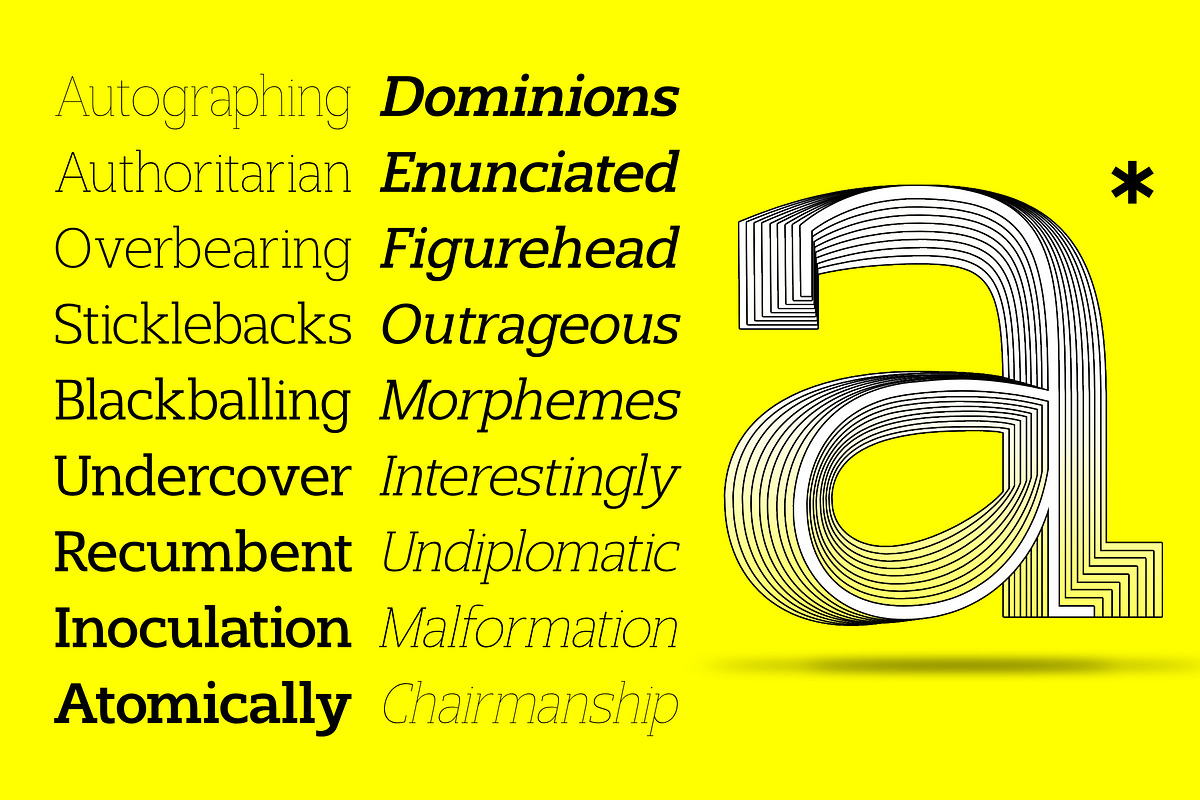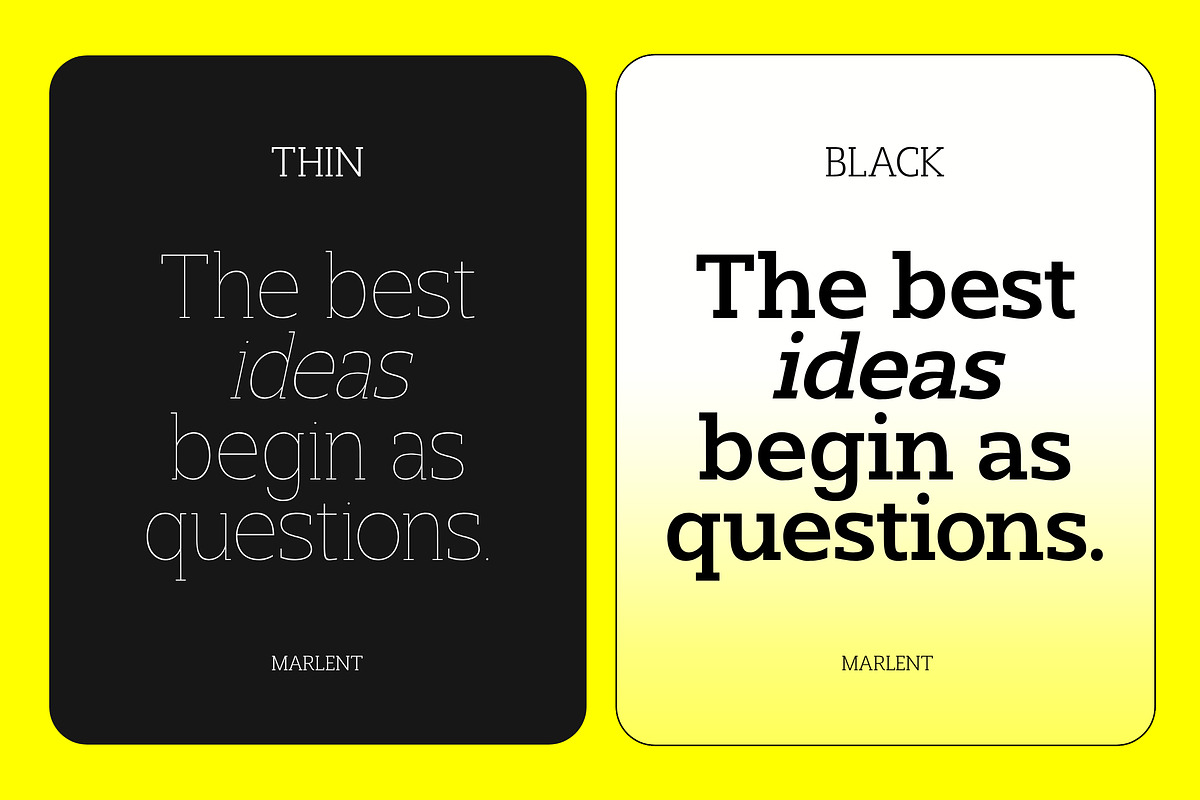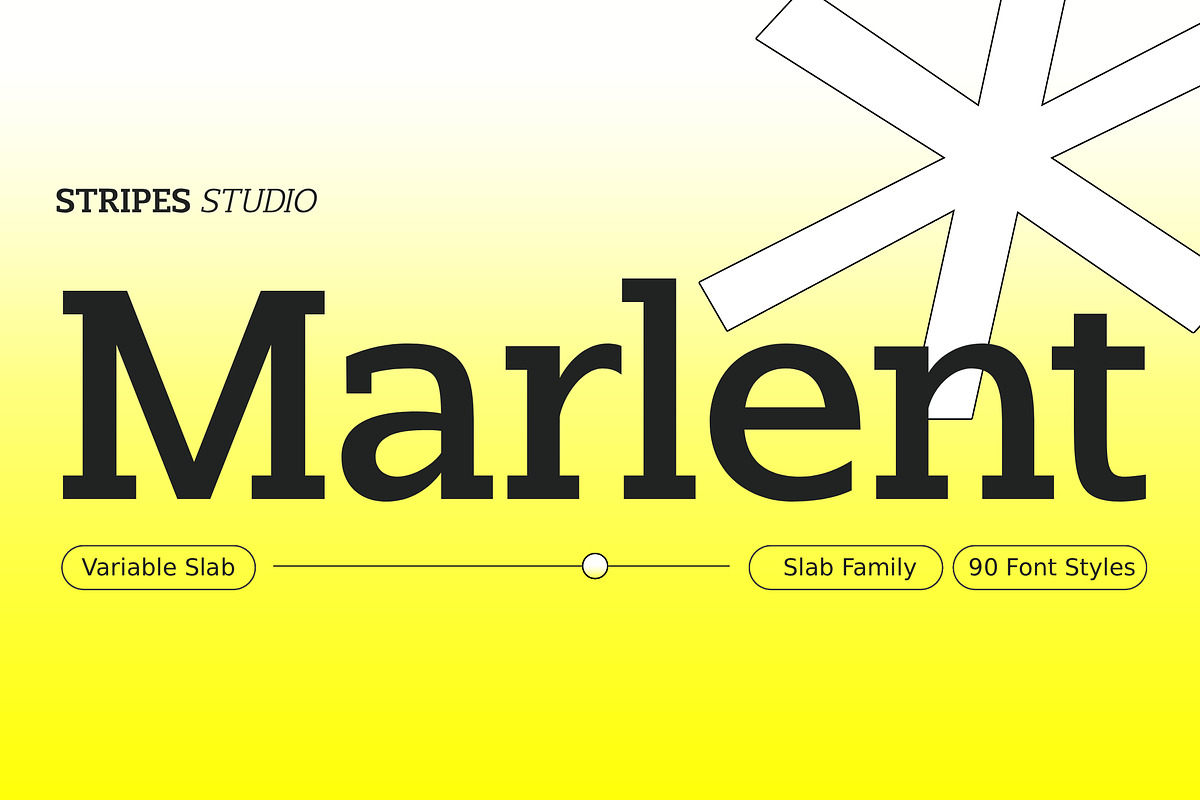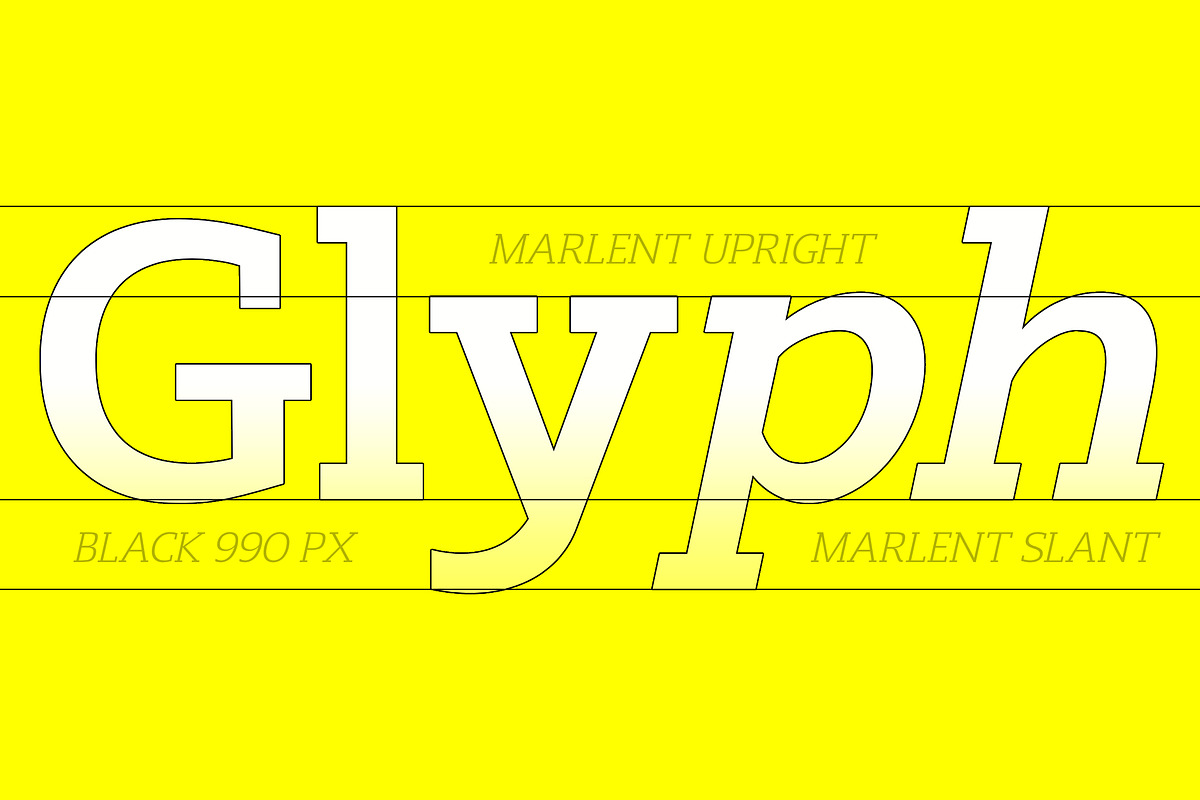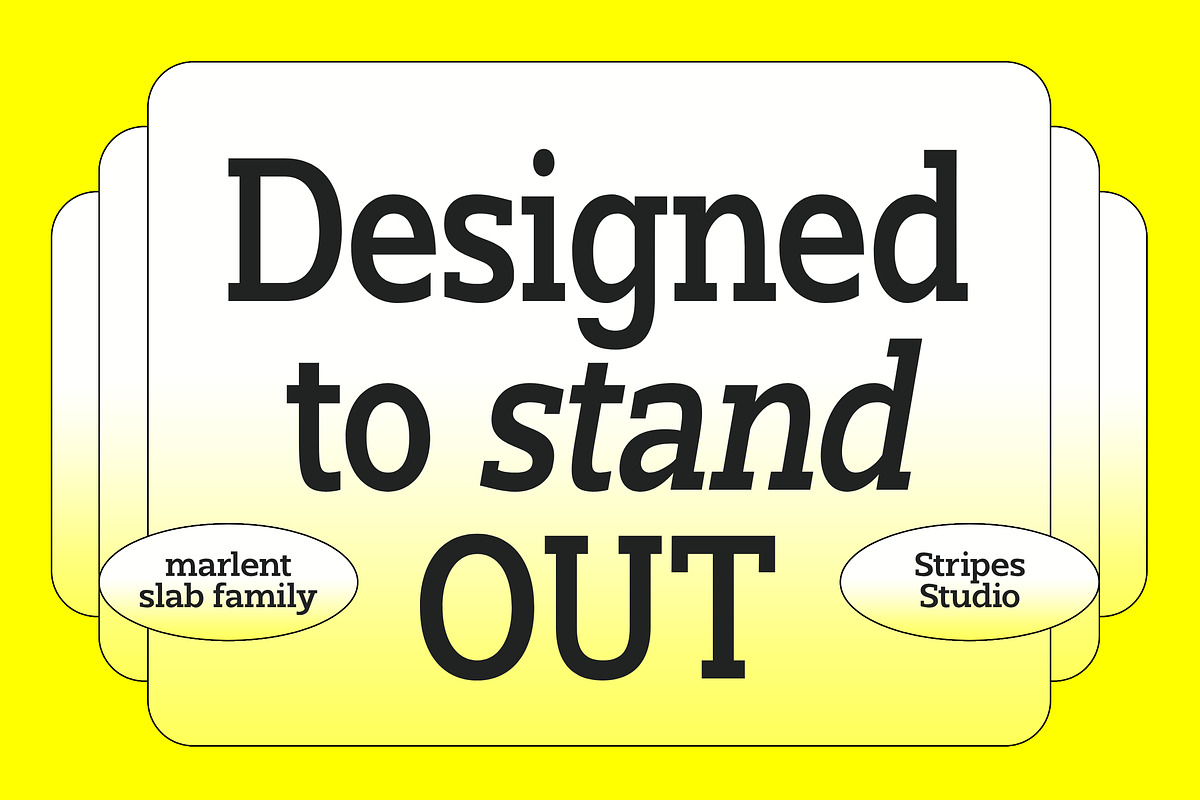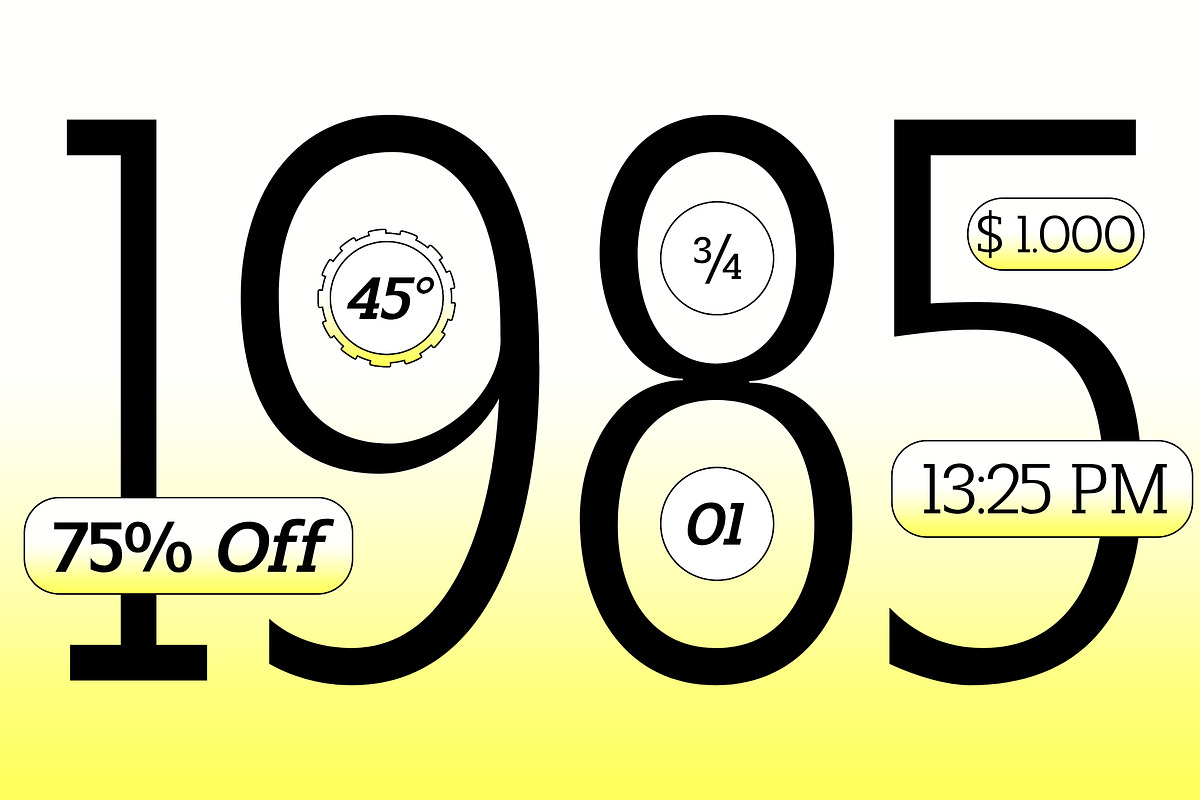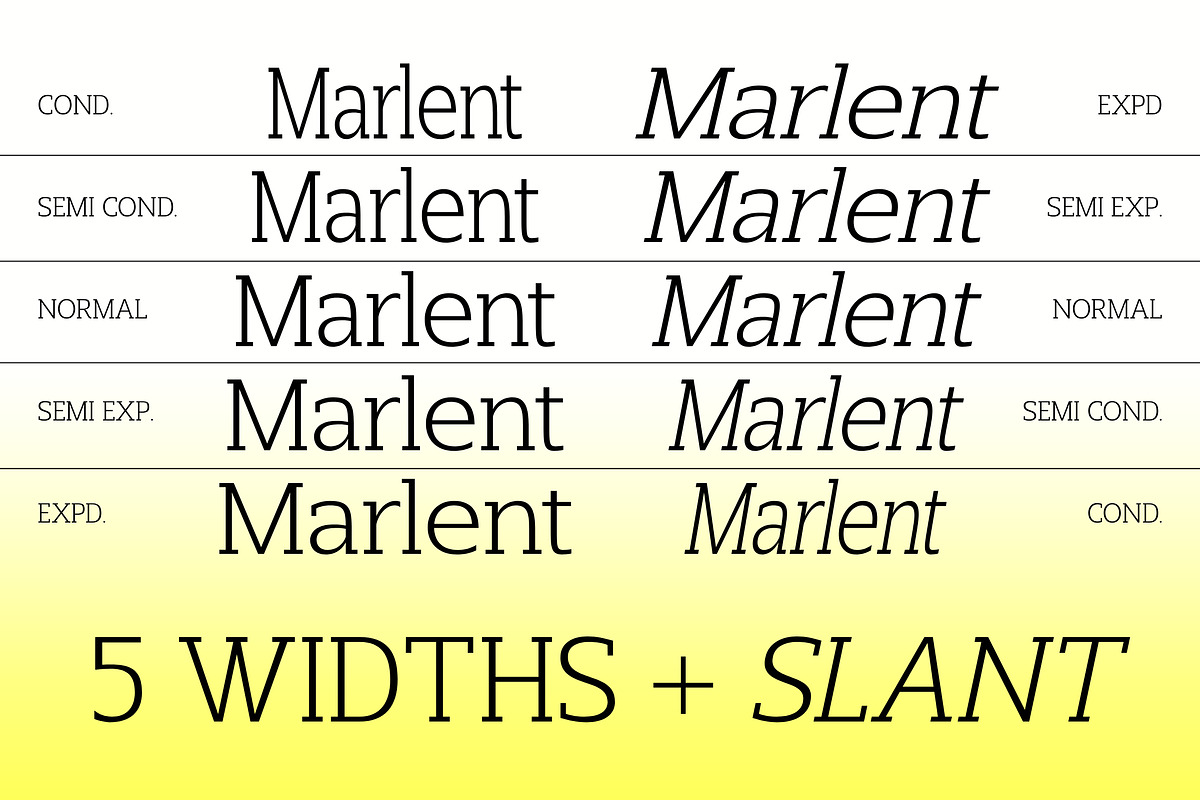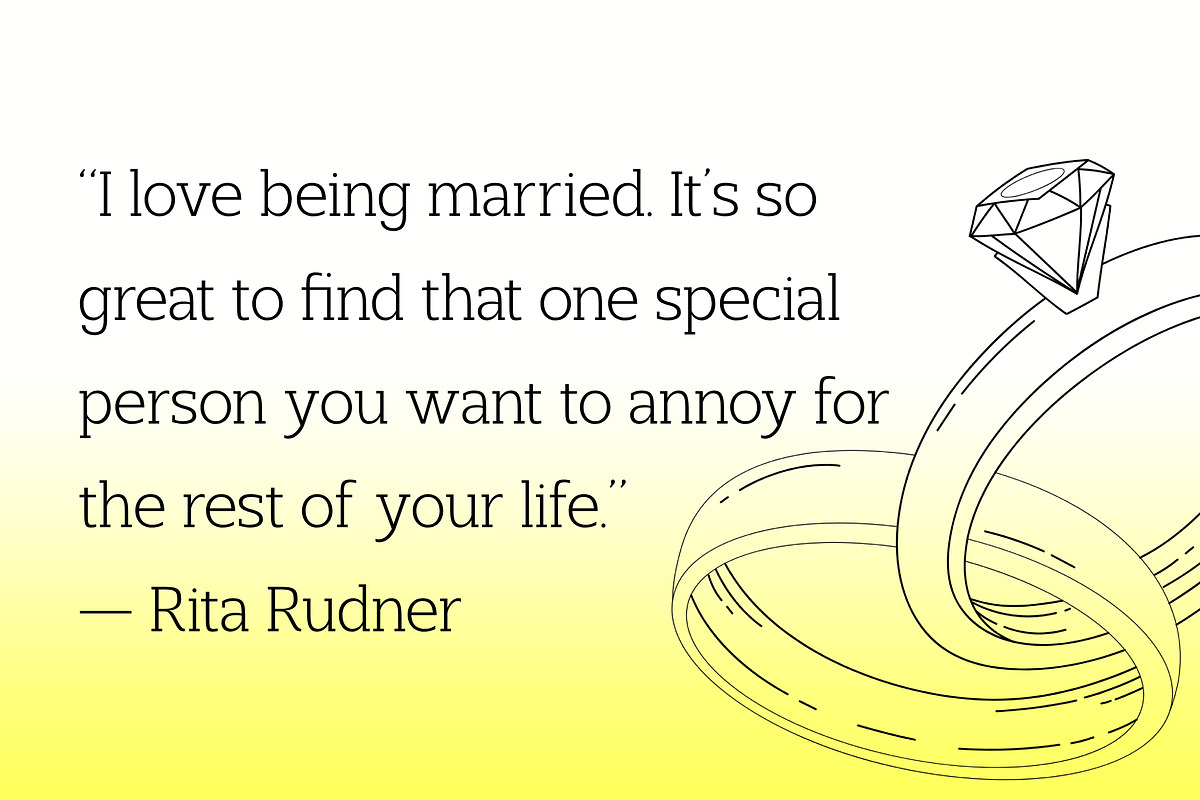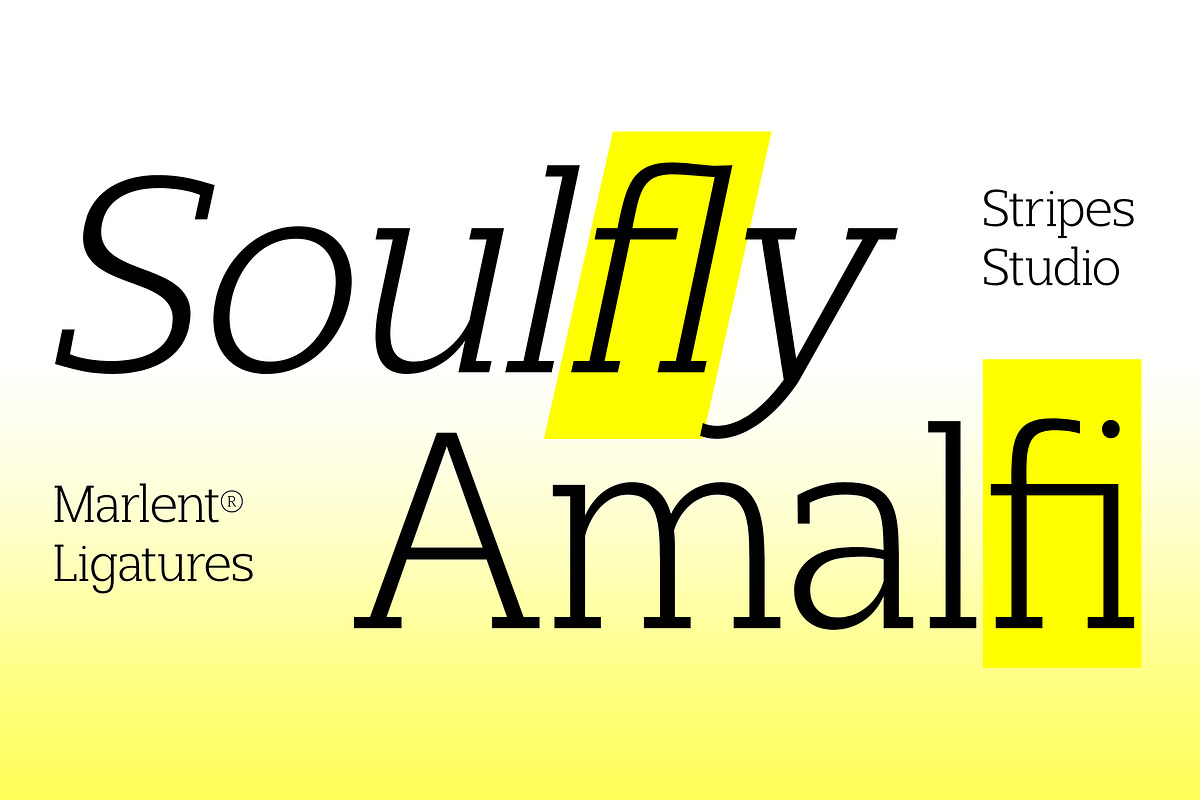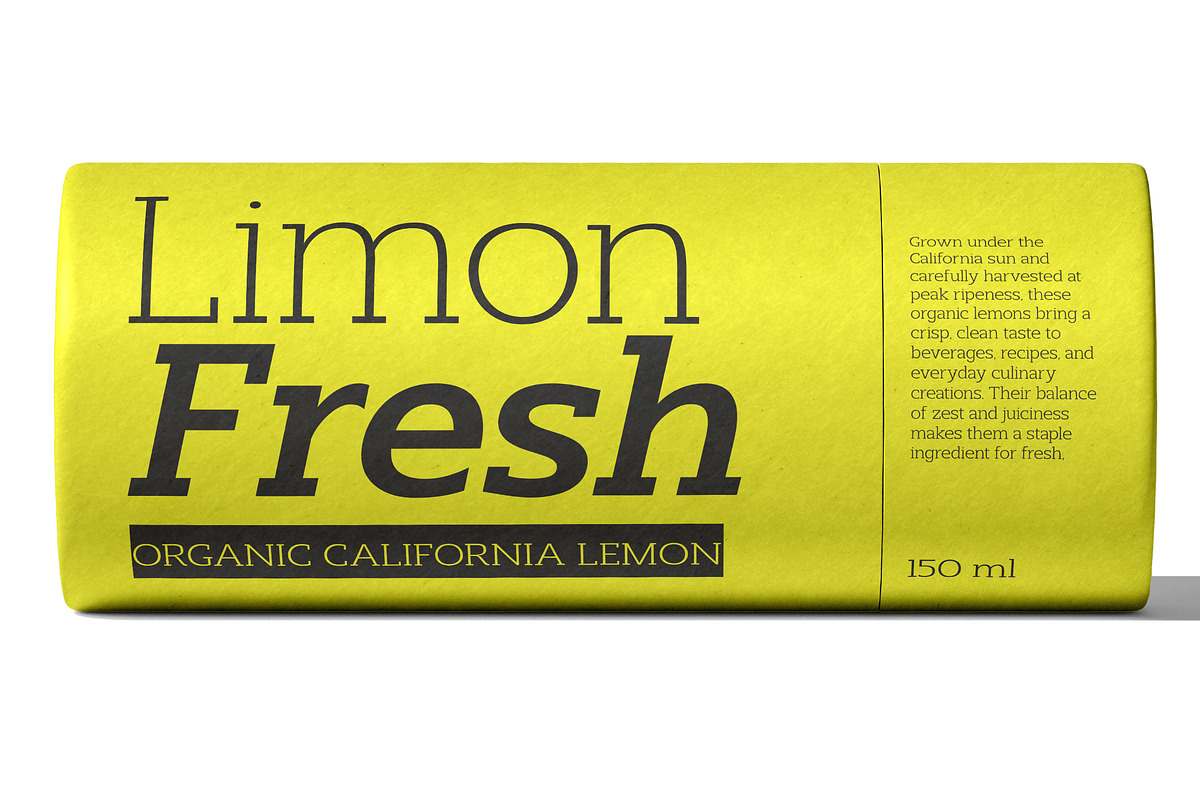
Marlent Variable
Marlent is an elegant and modern typeface with a refined, stylish character. It features clean lines, balanced proportions, and sophisticated letterforms that create a premium and luxurious appearance. Ideal for branding, logos, fashion projects, editorial layouts, product packaging, beauty brands, and designs that require a classy, feminine, and contemporary aesthetic.